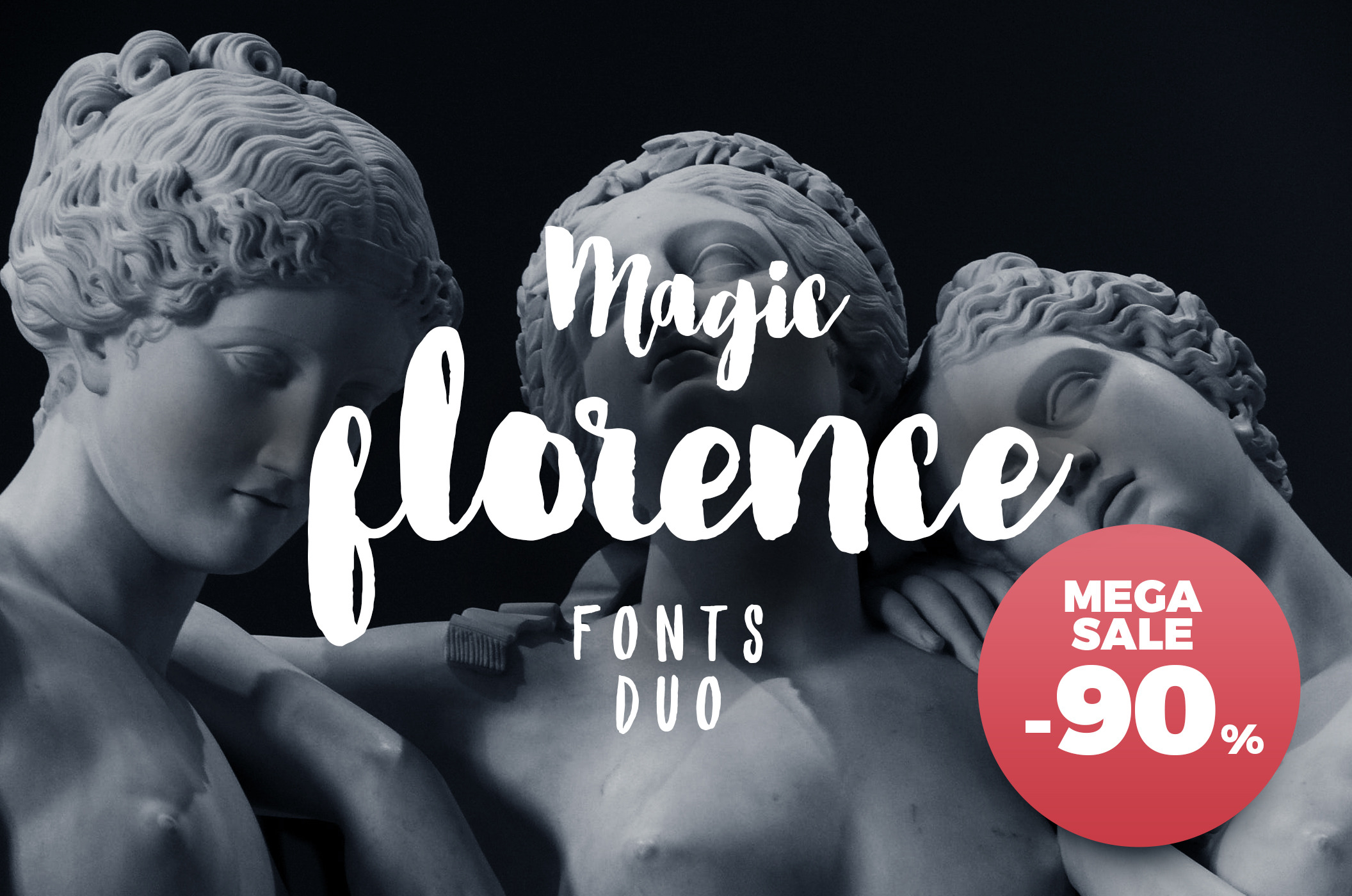
Florence is an OTF & TTF hand-lettering typeface with a delicious brush style, it’s perfect for letterhead, apparel design, headline, logotype, poster, card, and etc. Florence comes with two font styles; Florence regular & Florence helper. Alternates are accessible by turning 'Stylistic Alternates' and 'Ligatures' buttons on in Photoshop's Character panel, or via any software with a glyphs panel, e.g. Adobe Illustrator, Photoshop, Inkscape.
Uppercase and lowercase letters
Alternate letters
Splashes
Symbols